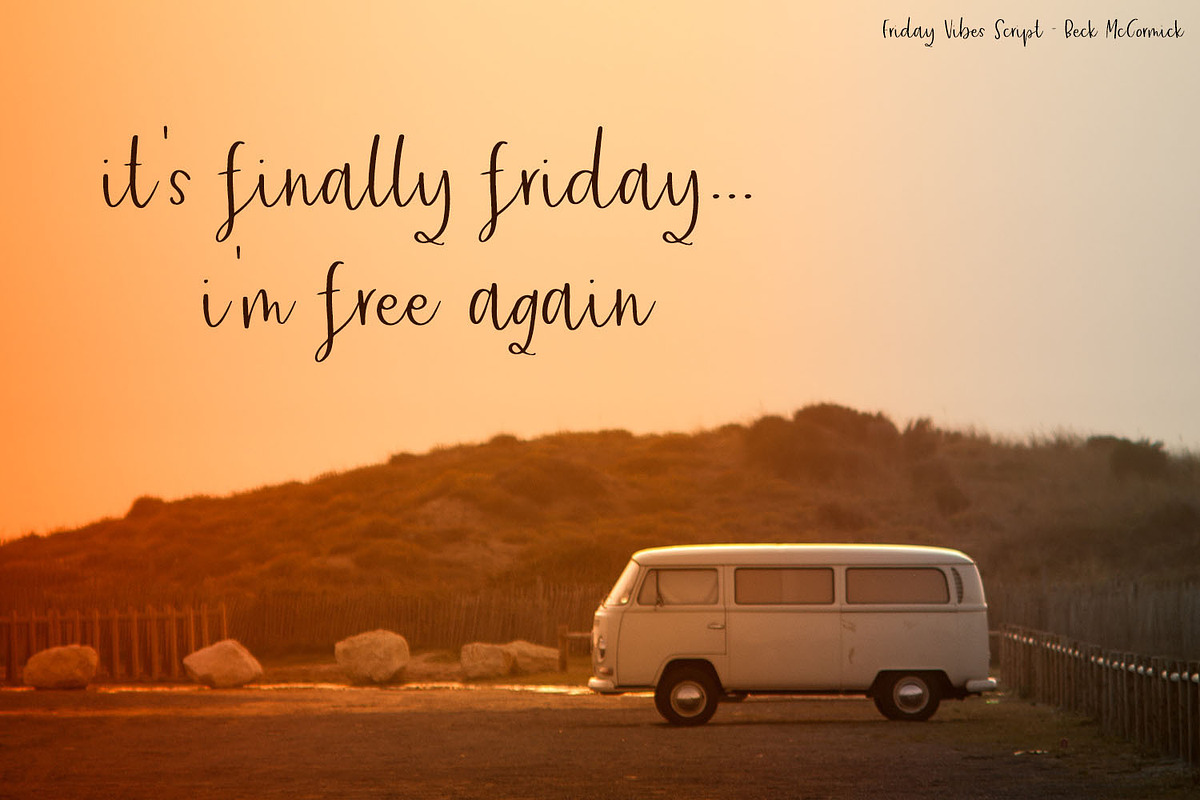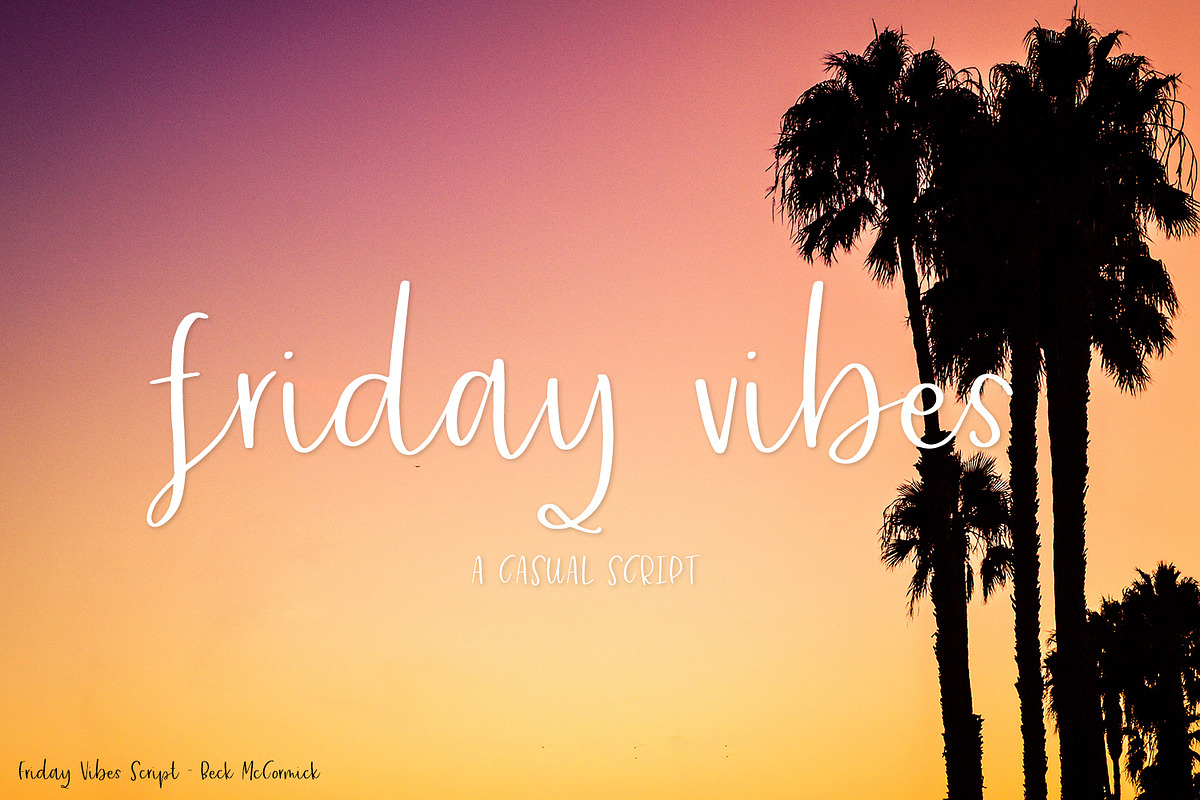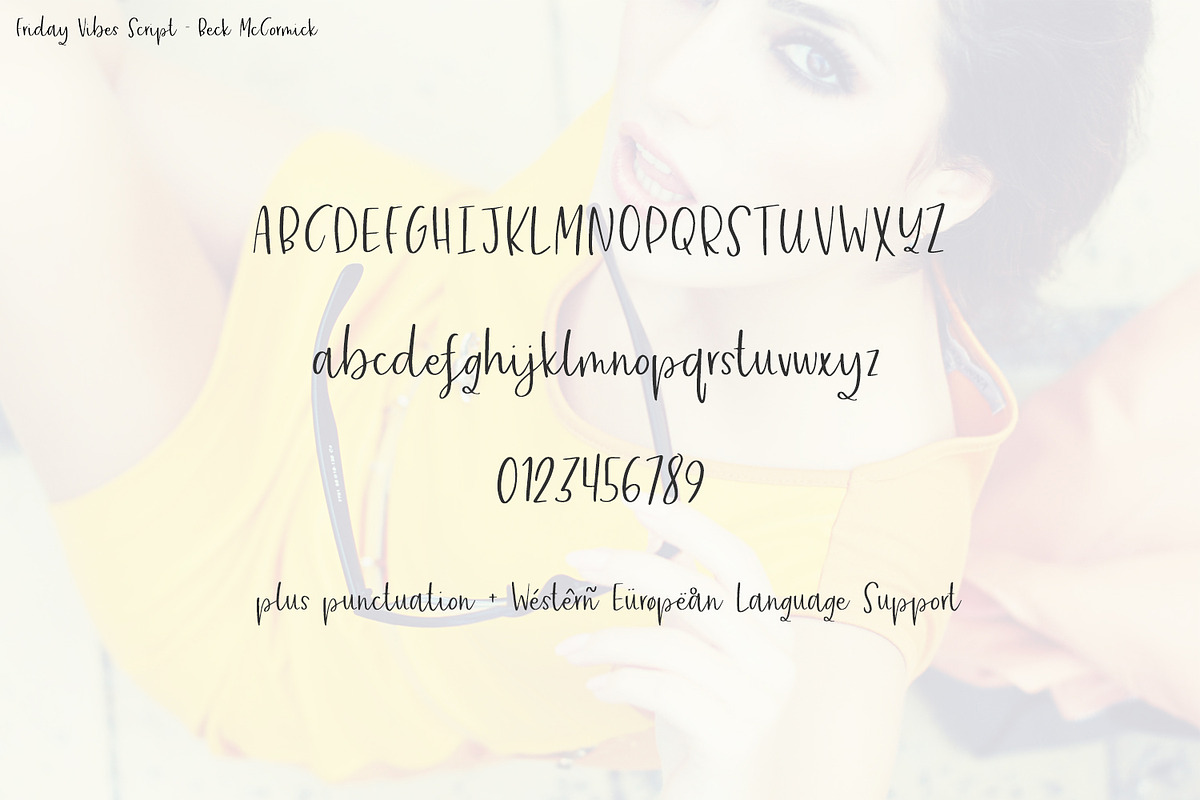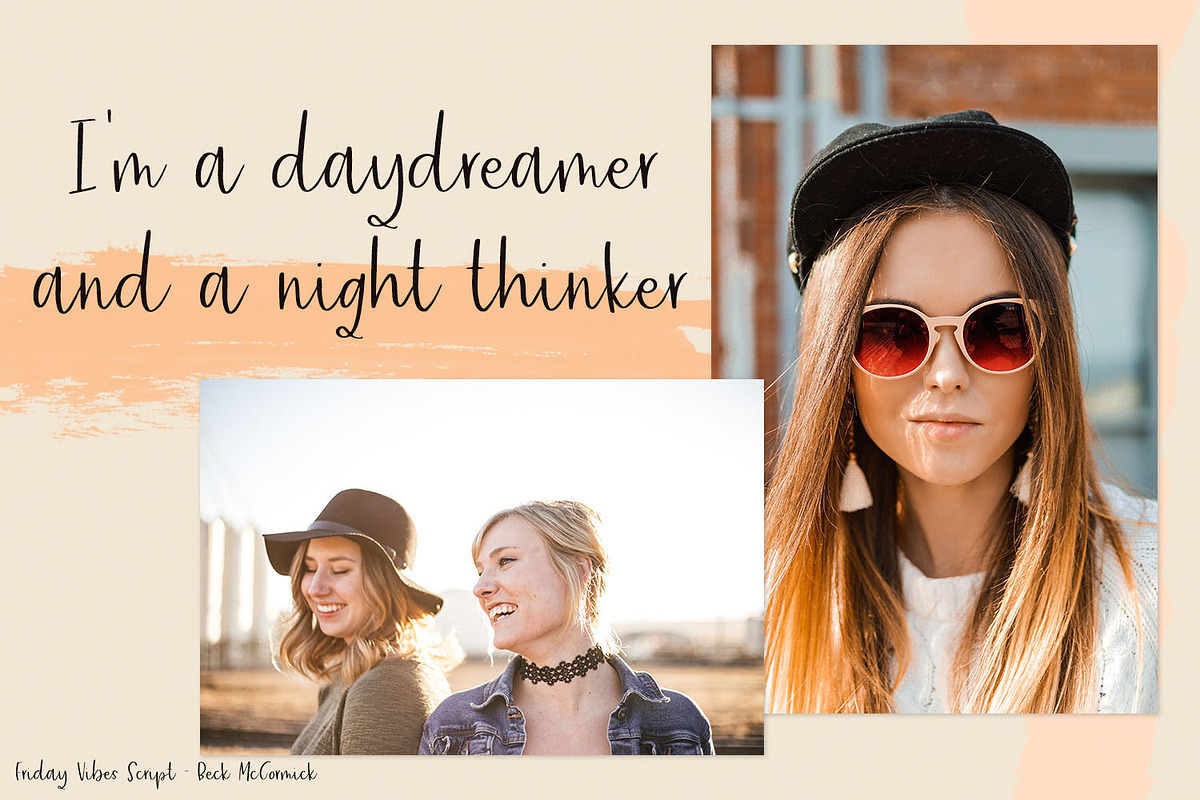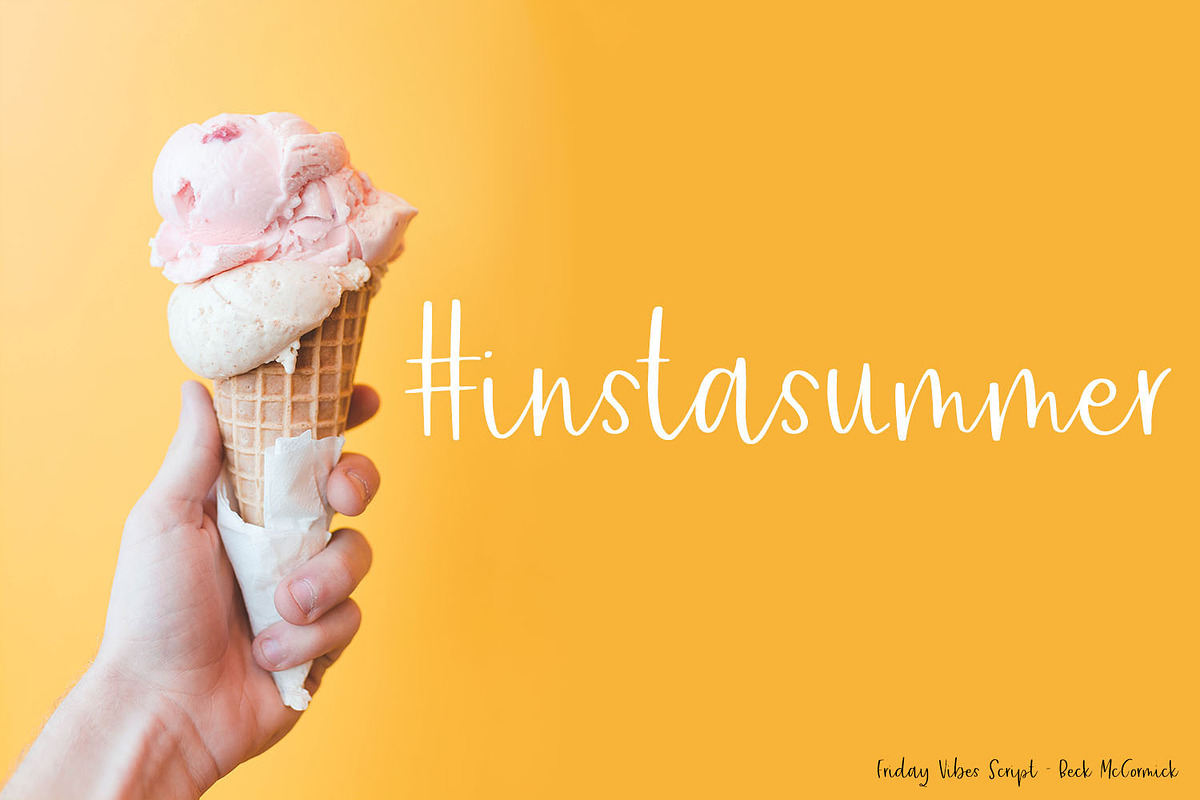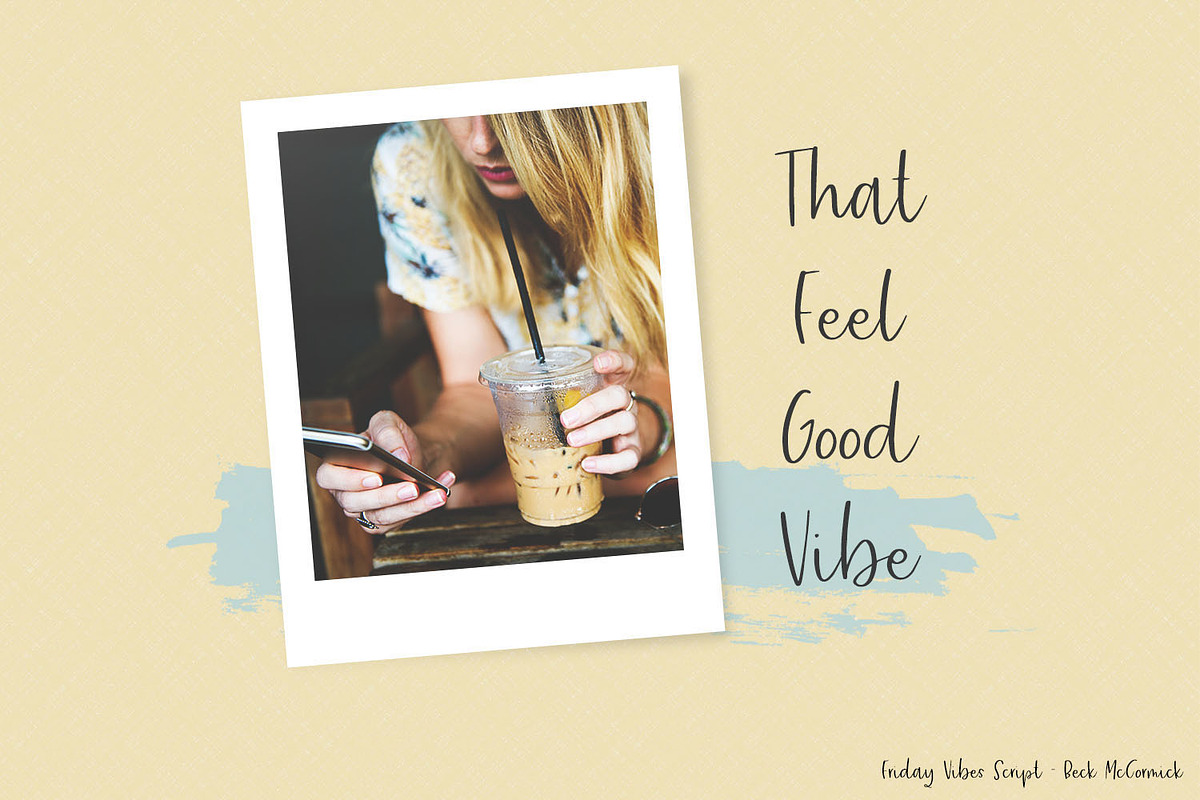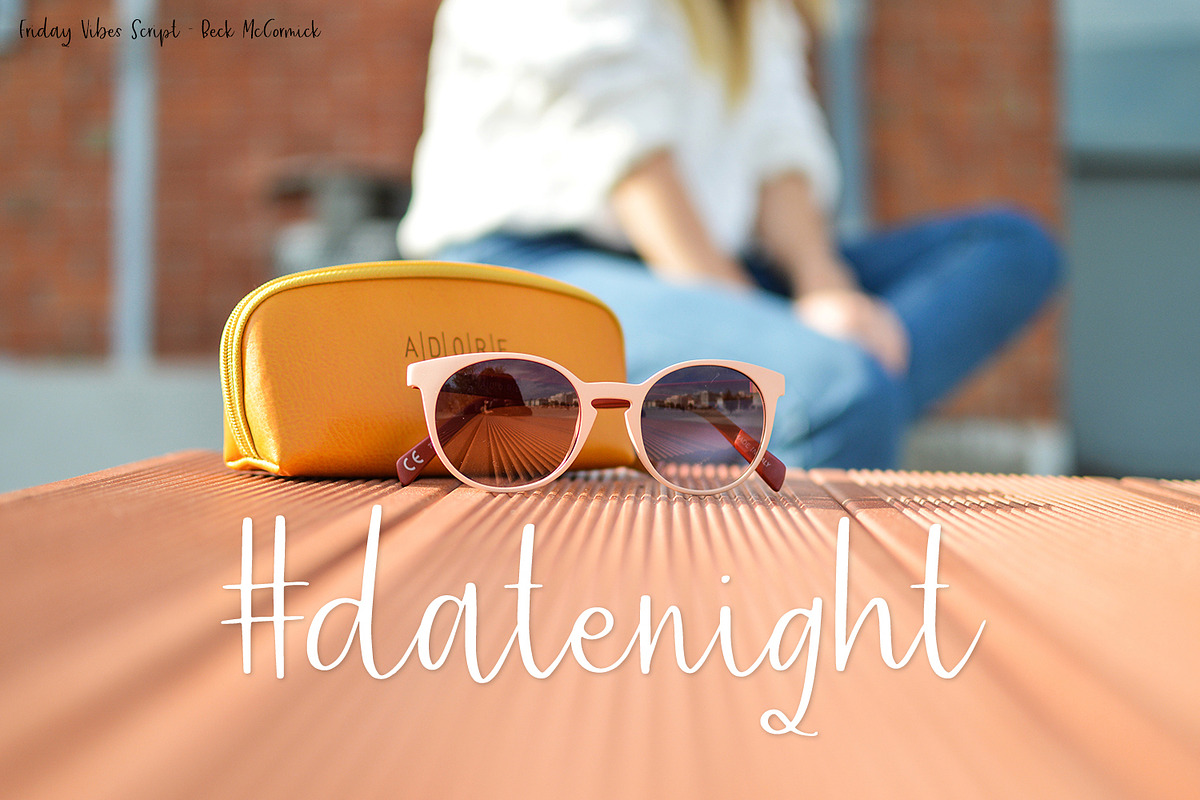
Friday Vibes Script
Meet Friday Vibes, your newest casual, effortless script. Friday Vibes is easy to get along with, and is always up for a good time without being over the top. Easy to read, similar to neat handwriting, and features Western European Language Support. You’ll want to use Friday Vibes for social media — specifically, crafting Instagram posts — logo + branding projects, t-shirt & apparel design, websites, and more!